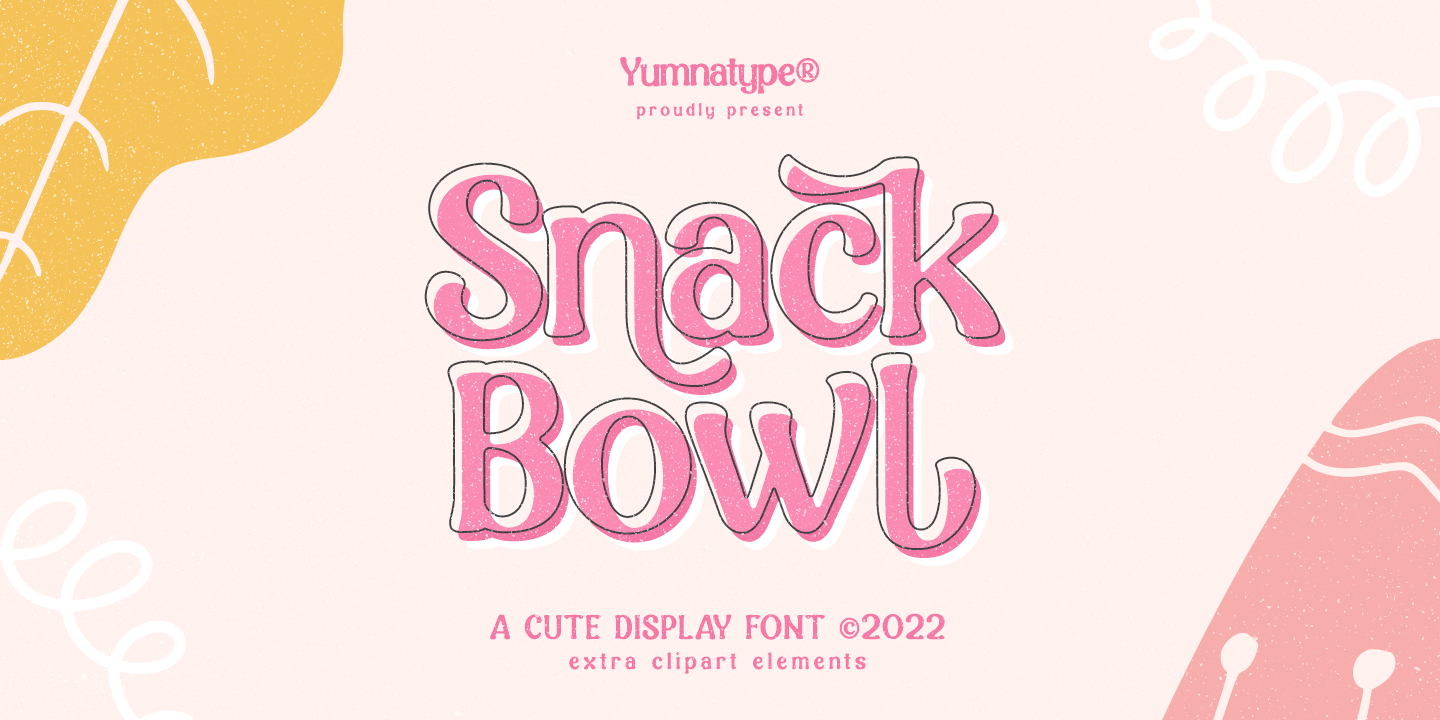
Snack Bowl Font is perfect for casual dining restaurant branding, snack food packaging, family-friendly café communications, popcorn stand signage, game night event promotions, movie theater concession materials, fun kitchen gadget marketing, and cozy comfort food establishment designs. This playful typeface excels in applications where casual comfort, snacking enjoyment, and friendly accessibility are essential for connecting with audiences who appreciate simple pleasures and the satisfying comfort of shareable snack experiences.
What makes Snack Bowl Font so exciting is its delightful embodiment of casual comfort and snacking satisfaction that perfectly captures the essence of shared treats and the cozy pleasure of comfort food gatherings. The font features rounded, approachable letterforms with friendly characteristics that evoke bowl shapes and comfortable snacking moments. Its welcoming character conveys warmth, satisfaction, and casual enjoyment - essential qualities for brands serving families, casual diners, and comfort food enthusiasts who appreciate simple pleasures, shareable treats, and the relaxed atmosphere of comfortable snacking experiences.
The Snack Bowl Font family includes multiple comfortable weights and snack-inspired variations that enhance its casual appeal. Some versions feature subtle rounded elements that simulate bowl curves and snack container shapes, while others provide cleaner variants that maintain the font's friendly character with improved readability for professional food service applications and commercial casual dining communications.
Whether you're creating branding for casual restaurants, designing packaging for snack products, or developing marketing campaigns for comfort food businesses, Snack Bowl Font Free Download provides the friendly accessibility your project requires. The font's comfortable character makes it particularly effective for brands targeting families and casual dining audiences who appreciate comfort food, snacking pleasure, and the warm satisfaction of shared treat experiences.
Share comfort and joy with Snack Bowl Font and serve up friendly brand communications with typography that celebrates the simple pleasure of snacking and casual comfort food enjoyment.